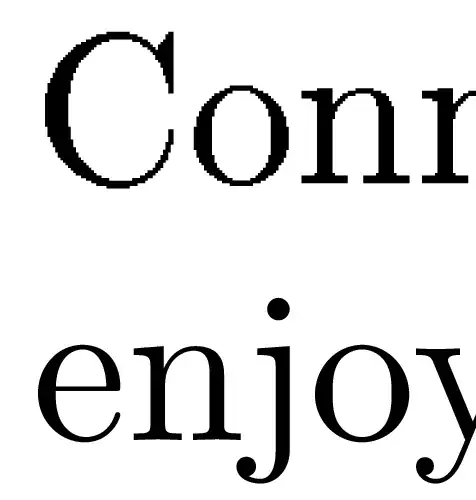
The following output pdftex > dvi > ps shows the problem: enlarged font problem
This comes about as follows. First, I use the file
Second, I made two new versions of cmr10 as in this answer. Third, I ran the above file with pdftex and then dvips. I viewed it with gv (using the default antialias) and zoomed in on a part to show above. Adding a line to use \pdfpkresolution = 72 (or larger) made no difference. How can I correct this so that the new fonts are like the old in quality?
If you've created expanded source fonts (.mf), then they are not scalable and certain readers (especially a certain reader) is known to handle these fonts very badly with precisely the results you show. If you wish to avoid this, whatever fonts you use (expanded or otherwise) must be scalable. It doesn't matter whether you're creating the fonts of they are pre-packaged. You'll get this effect unless you stick to scalable fonts. – cfr Jan 12 '16 at 23:26
• Although you are viewing postscript with gv, I assume something similar is at work, given the contrast. That is, at least with the settings you're using, it doesn't handle .mf well. I'm guessing that it is using scalable fonts for the unexpanded ones. However, you'd need to confirm these suppositions. – cfr Jan 12 '16 at 23:28
• @cfr I see. So once I create scalable fonts, they will have to be installed like other Type 1 fonts; is that right? – Russ Lyons Jan 12 '16 at 23:48
• P.S. The expanded fonts are Type 3, but I don't think this says whether they are scalable. They don't look good even not zoomed. – Russ Lyons Jan 12 '16 at 23:55
• You can tell from the console output precisely what it is using. But those are not scalable. In any case, if the fonts you produced involved .mf and .pk files, then they are not scalable. You know how you produced them. If you used the first method in that question for source fonts, you'll have non-scalable. If you used the second for type1 fonts, you'll have scalable. – cfr Jan 13 '16 at 00:40
\hminfamily ABC
\end{document}` using (pdf)LaTeX. Or change it into TeX if you prefer. This font is only available as source. You'll see precisely the same effect if you zoom a bit and just the same 'type' in the properties for the document listing the font as type3.
• @cfr Yes, I used .mf and .pk. Your example indeed is similar. – Russ Lyons Jan 13 '16 at 01:46
• Why do you think these are low-quality? The whole TeX+Metafont+CM project of Knuth was created for producing output for a digital typesetter, so it went all the way and produced the actual pixels for the output device (printer). Have you tried printing it out and seeing the output? Or looking on your screen at a normal zoom level? Most screens are just 100–200 dpi and MF was written to target a typesetter at 5333.33 dpi so you should be able to get great output without much trouble. Instead of something awful like \pdfpkresolution = 72, try 2400 or 8000. – ShreevatsaR Apr 20 '17 at 05:53
• @ShreevatsaR I just tried what you suggest. As in my original post, it made no difference. I did not print it out; it is important that it look good on screen. As I wrote in a comment earlier, it does not look good at normal zoom. – Russ Lyons Apr 20 '17 at 16:44